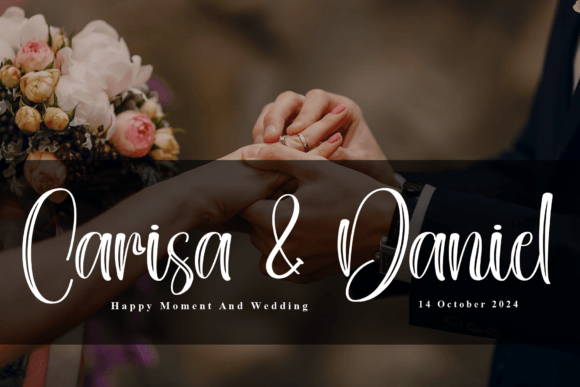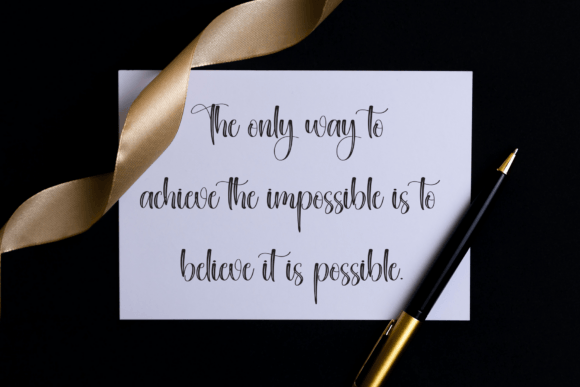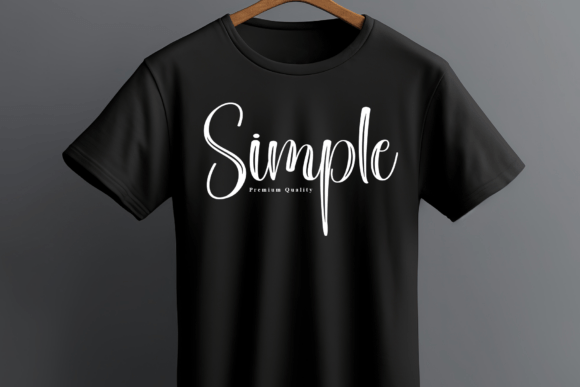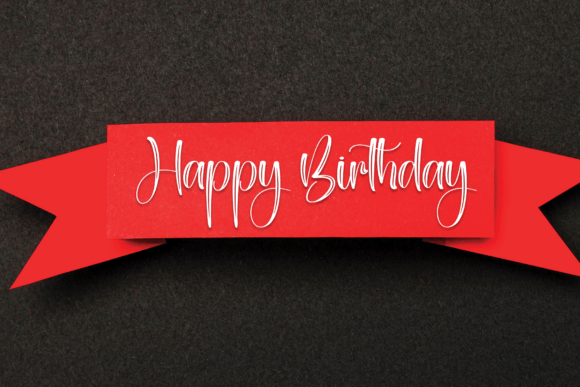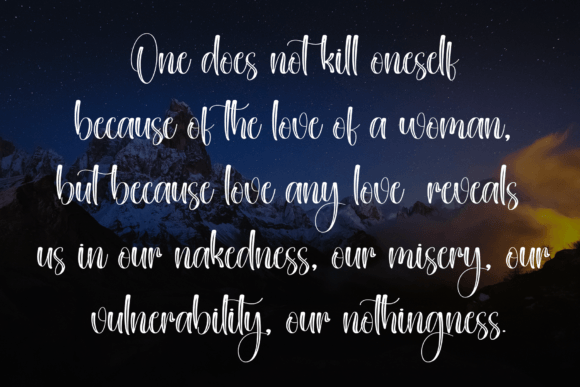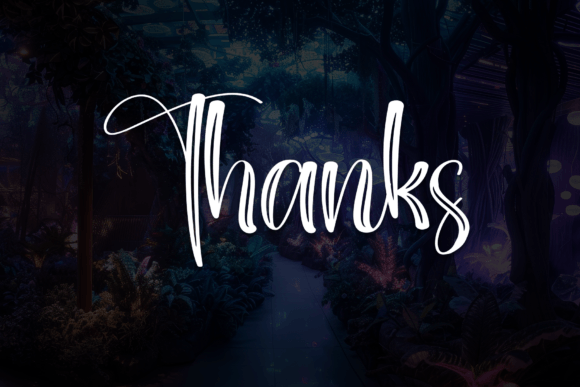
Introducing Beautiful Wonderland Font: Elevate Your Designs with Elegance
Are you a designer or crafter looking for a font that exudes elegance and sophistication? Look no further than the Beautiful Wonderland Font. This stylish and incredibly elegant script font is perfect for adding a handwritten touch to your designs. In this article, we’ll explore the features and benefits of Beautiful Wonderland Font, and how it can elevate your designs to the next level.
What is Beautiful Wonderland Font?
Beautiful Wonderland Font is a stunning script font that is designed to add a touch of elegance and sophistication to your designs. With its flowing lines and intricate details, this font is perfect for creating beautiful and eye-catching designs. Whether you’re working on a wedding invitation, thank you card, quote, greeting card, logo, or business card, Beautiful Wonderland Font is the perfect choice.
Key Features of Beautiful Wonderland Font
- Elegant and Stylish: Beautiful Wonderland Font is designed to be incredibly elegant and stylish, making it perfect for designs that require a touch of sophistication.
- Script Font: This font is a script font, which means it has a handwritten feel that’s perfect for adding a personal touch to your designs.
- Versatile: Beautiful Wonderland Font can be used for a wide range of designs, including wedding invitations, thank you cards, quotes, greeting cards, logos, and business cards.
- Easy to Read: Despite its elegant and intricate design, Beautiful Wonderland Font is easy to read, making it perfect for designs that require a clear and concise message.
Benefits of Using Beautiful Wonderland Font
There are many benefits to using Beautiful Wonderland Font in your designs. Here are just a few:
- Adds a Touch of Elegance: Beautiful Wonderland Font adds a touch of elegance and sophistication to your designs, making them stand out from the crowd.
- Perfect for Wedding and Event Designs: This font is perfect for wedding invitations, thank you cards, and other event designs that require a touch of elegance and sophistication.
- Increases Readability: Beautiful Wonderland Font is easy to read, which means your message will be clear and concise, making it perfect for designs that require a clear call-to-action.
- Versatile: This font can be used for a wide range of designs, making it a great addition to your font library.
How to Use Beautiful Wonderland Font
Using Beautiful Wonderland Font is easy. Here are a few tips to get you started:
- Pair it with Other Fonts: Beautiful Wonderland Font pairs well with other fonts, such as sans-serif fonts, to create a stunning contrast.
- Use it for Headings: This font is perfect for headings and titles, where you want to make a statement.
- Add a Personal Touch: Use Beautiful Wonderland Font to add a personal touch to your designs, such as on wedding invitations or thank you cards.
In conclusion, Beautiful Wonderland Font is a stunning script font that is perfect for designers and crafters looking to add a touch of elegance and sophistication to their designs. With its flowing lines and intricate details, this font is sure to elevate your designs to the next level. Whether you’re working on a wedding invitation, thank you card, quote, greeting card, logo, or business card, Beautiful Wonderland Font is the perfect choice.